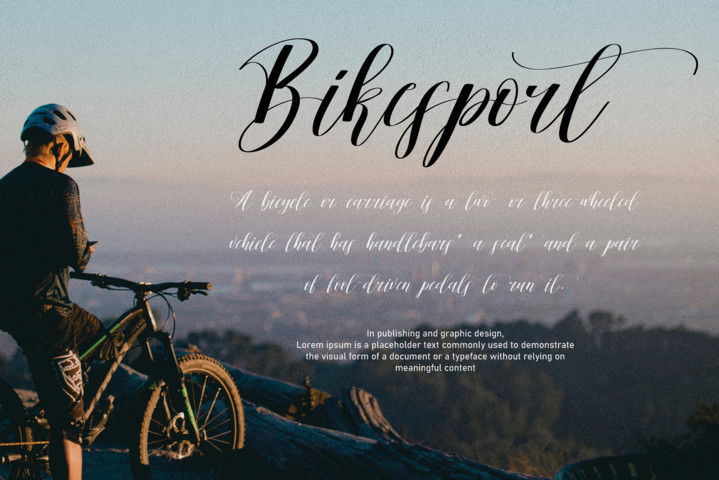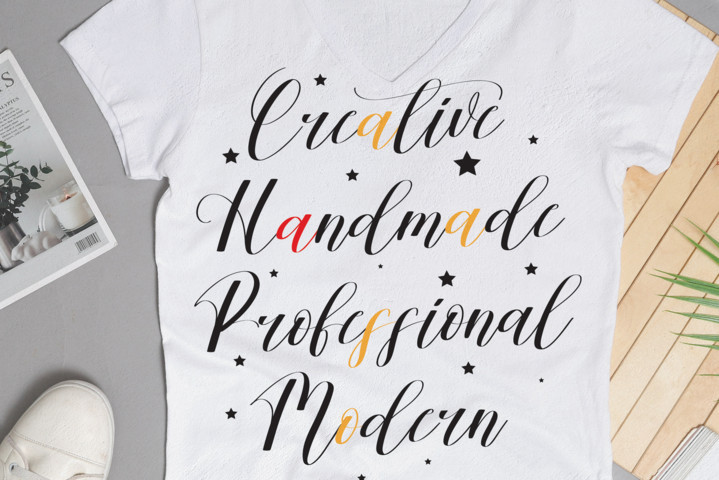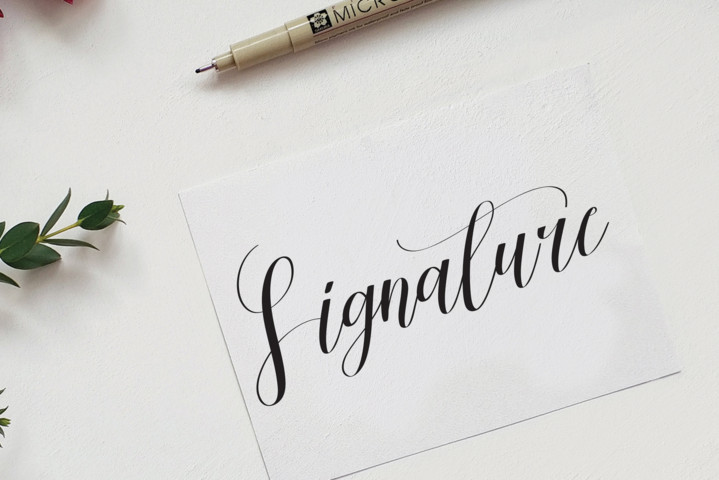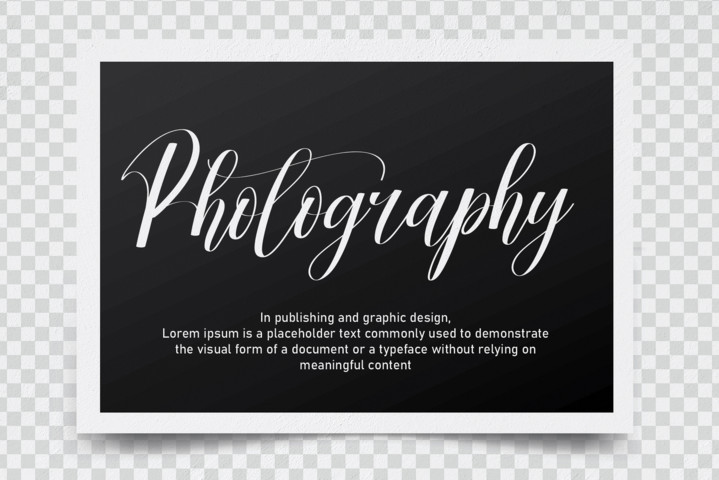
California Handwritten Typeface
It’s an organic handwritten font and its latest style letters are perfect for wall displays, wedding invitations, social media post logos, advertisements, product packaging, product designs, labels, photography, watermarks, invitations, stationery, and any project that requires taste handwriting.